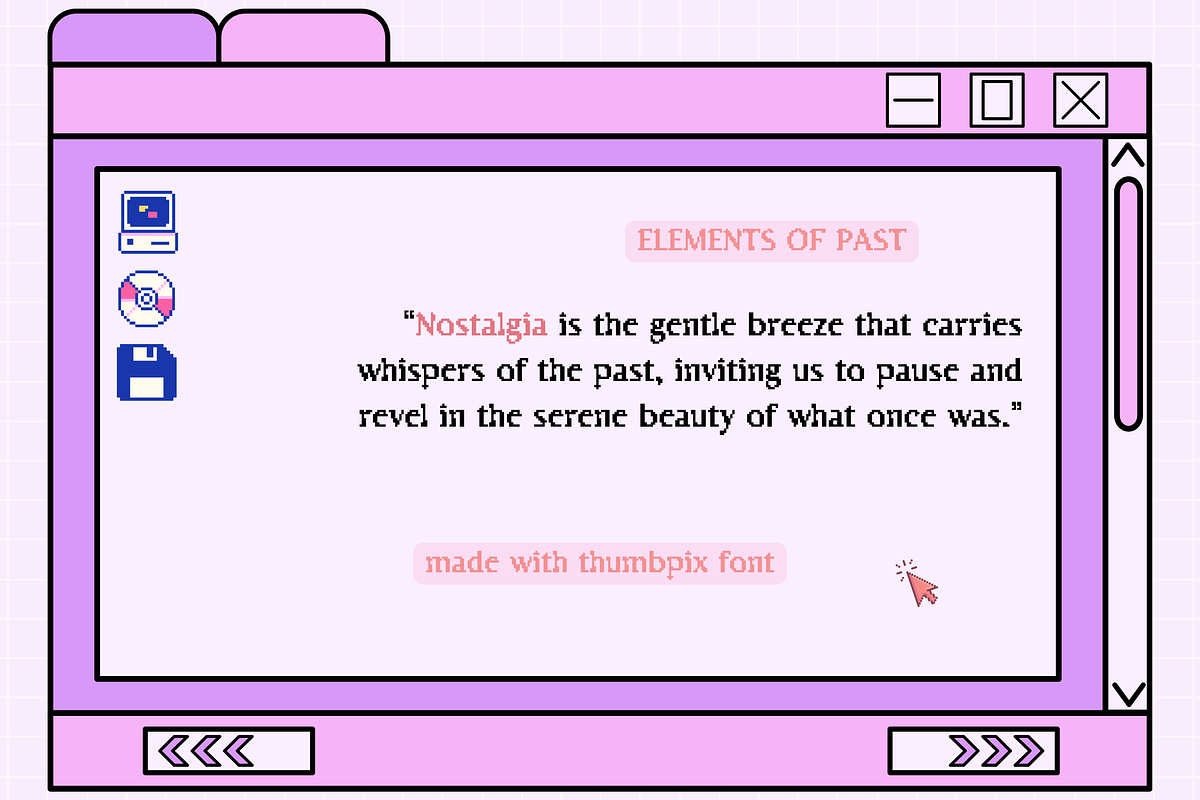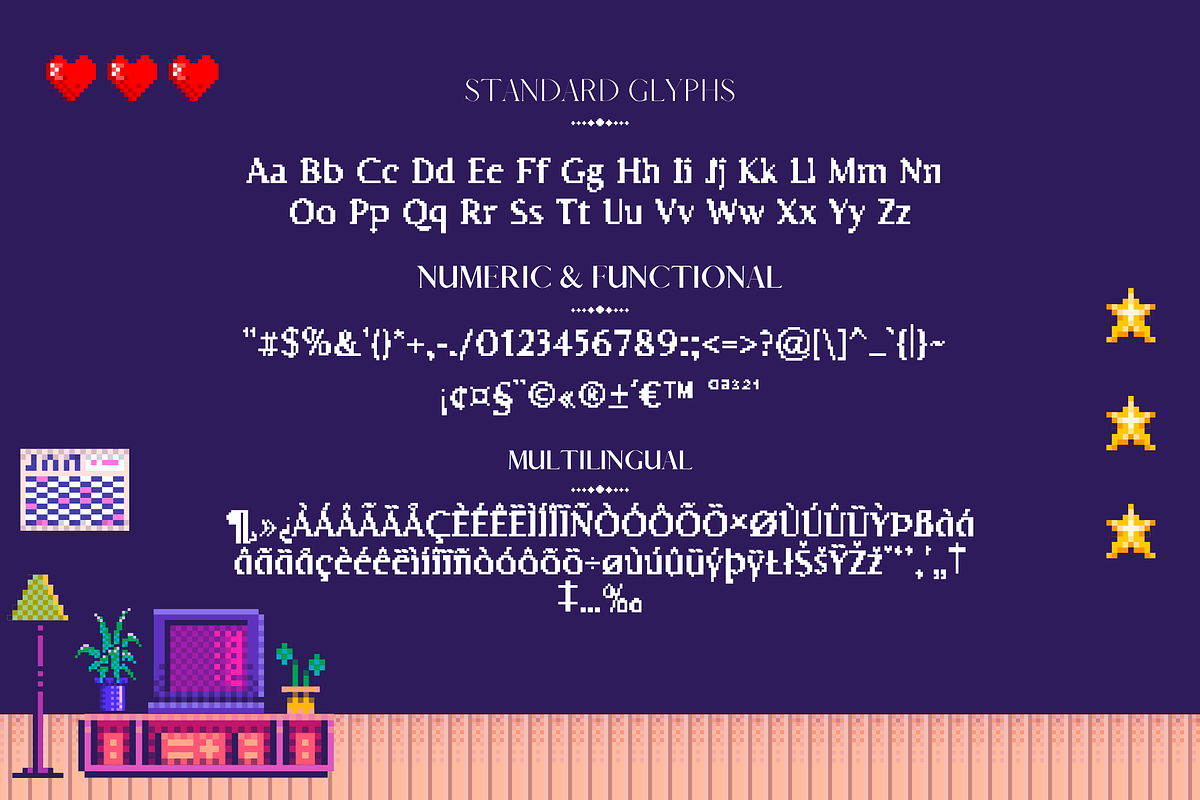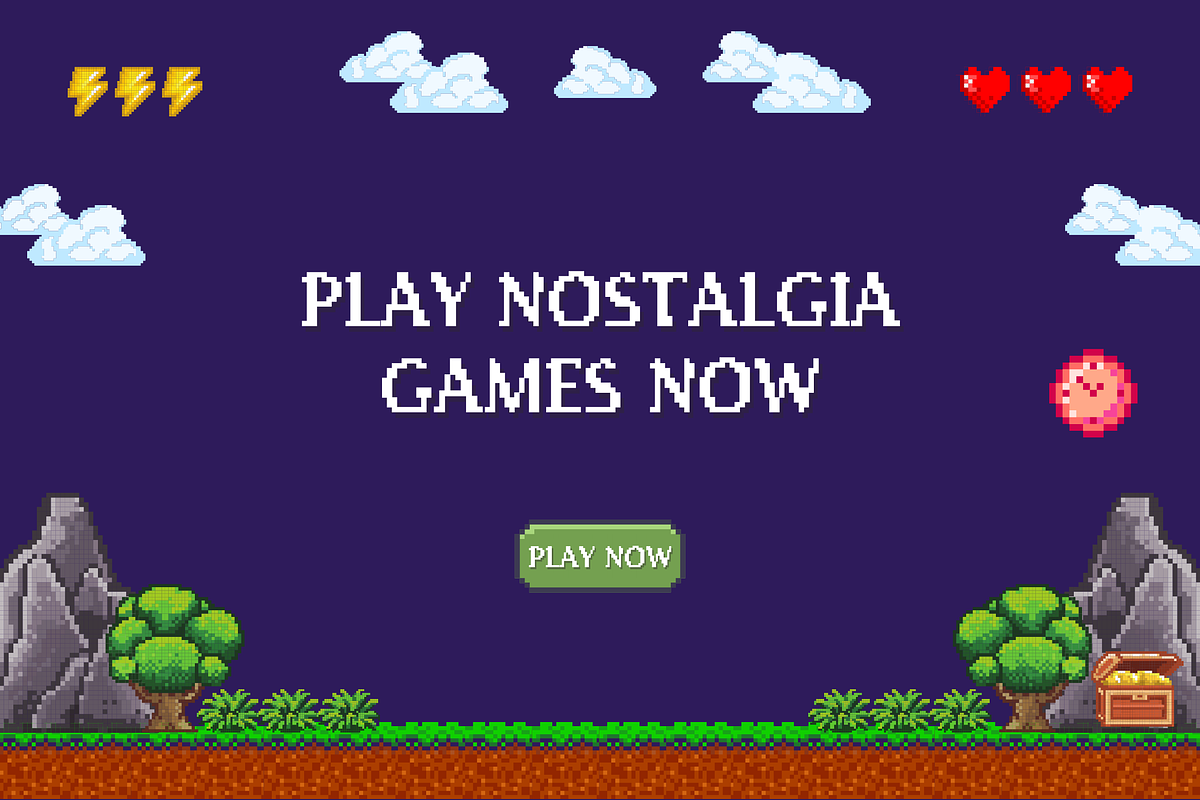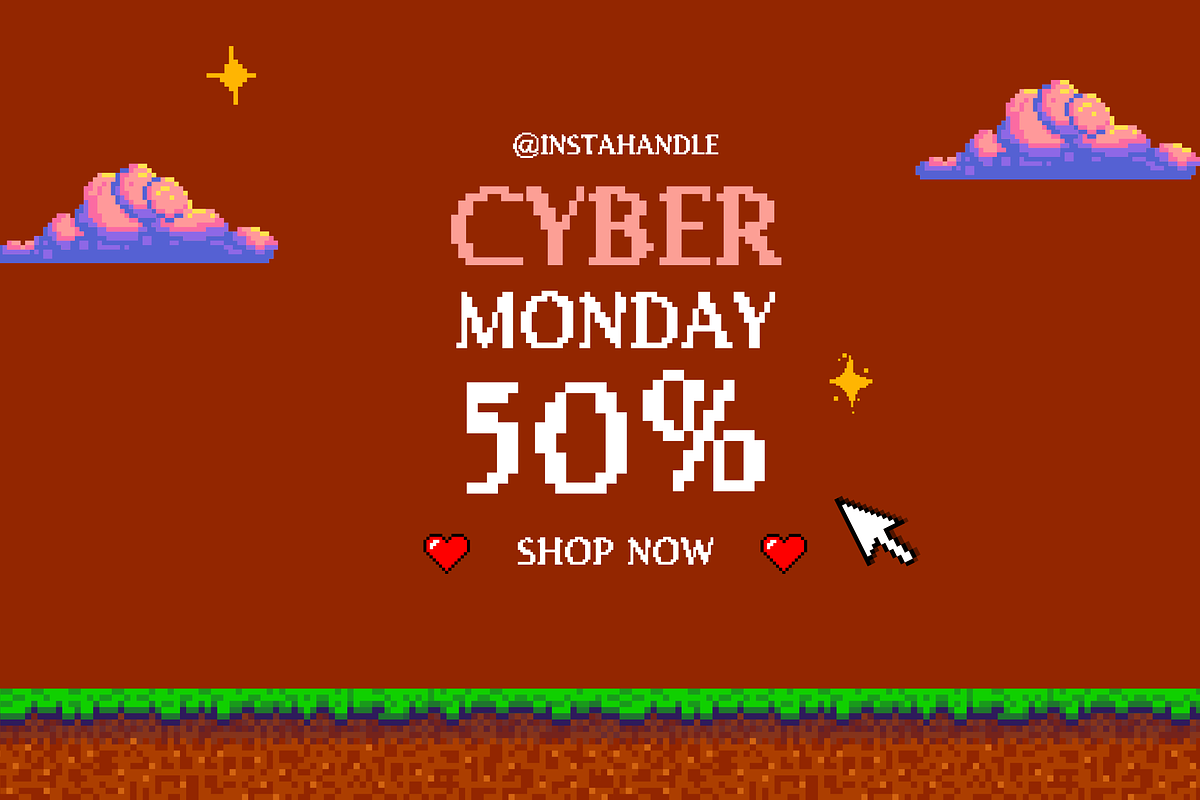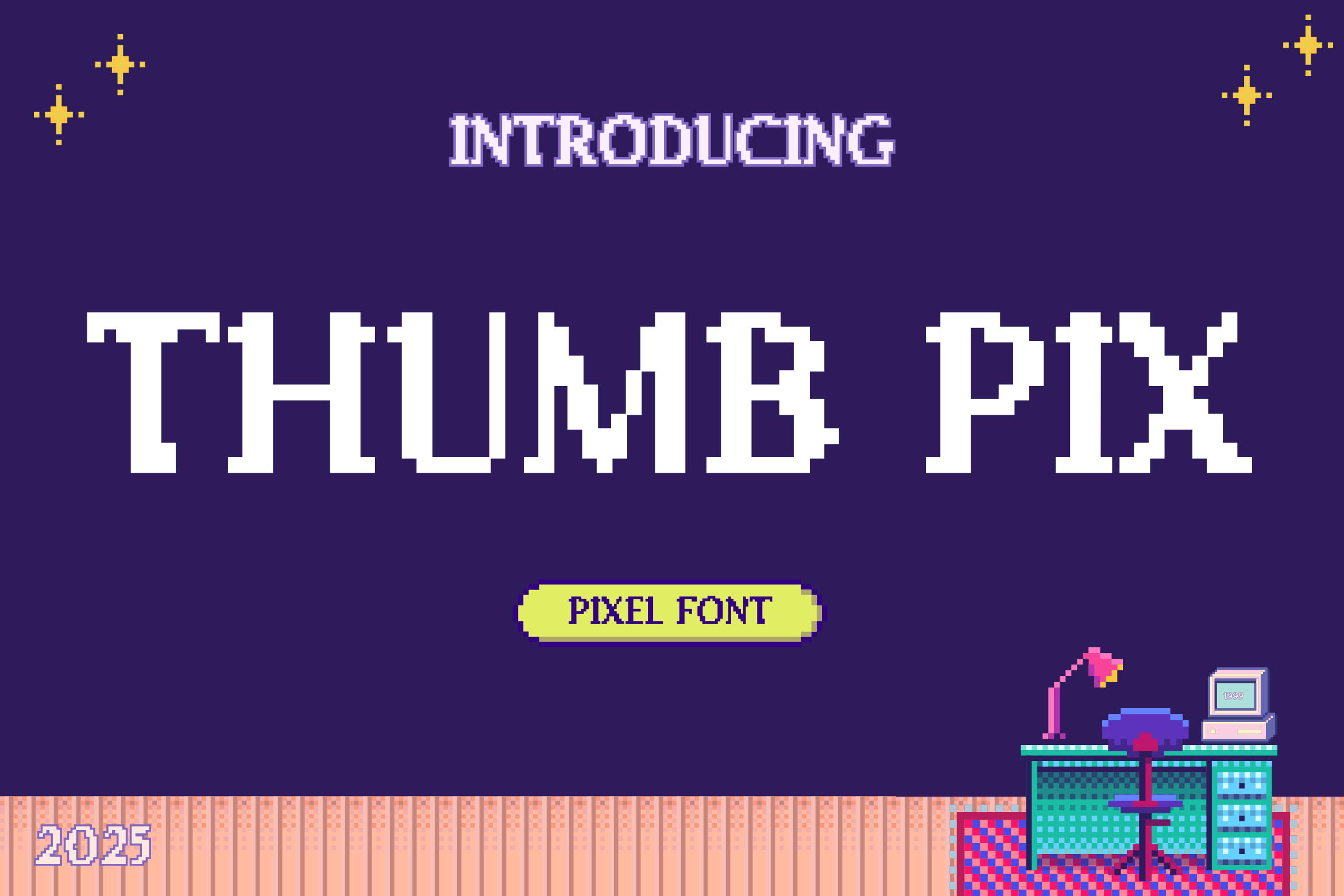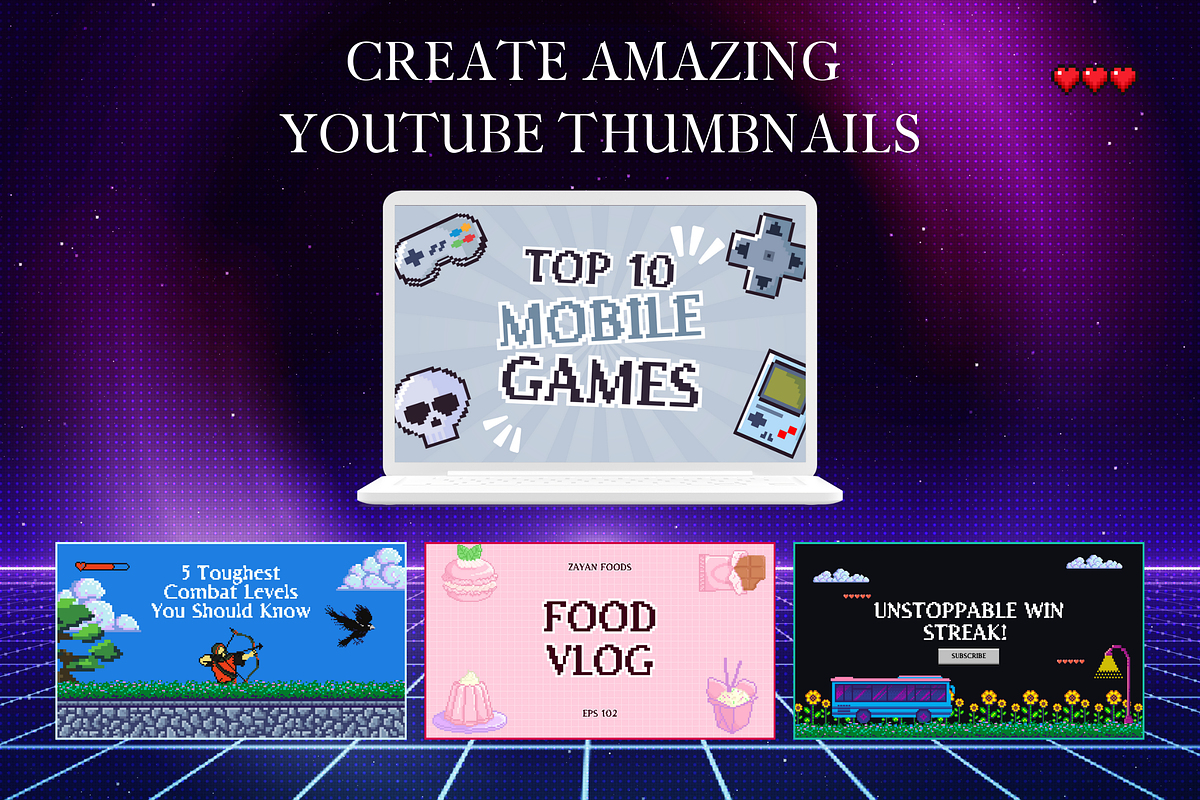
Thumbpix Pixel Font
Introducing Thumbpix Pixel Font, a bold and bubbly 8-bit typeface designed to make your text stand out. This font is packed with everything you need to build striking titles, vibrant UIs, nostalgic posters, and more.
Inspired by classic arcade vibes but crafted for modern design needs, Thumbpix Pixel is good for creatives looking to blend retro flair with pixel precision.
✨ Features:
- Uppercase & lowercase characters
- Numbers & essential punctuation
🚀 Ideal For: Game developers, streamers, pixel artists, retro designers, and anyone chasing that nostalgic 8-bit look.